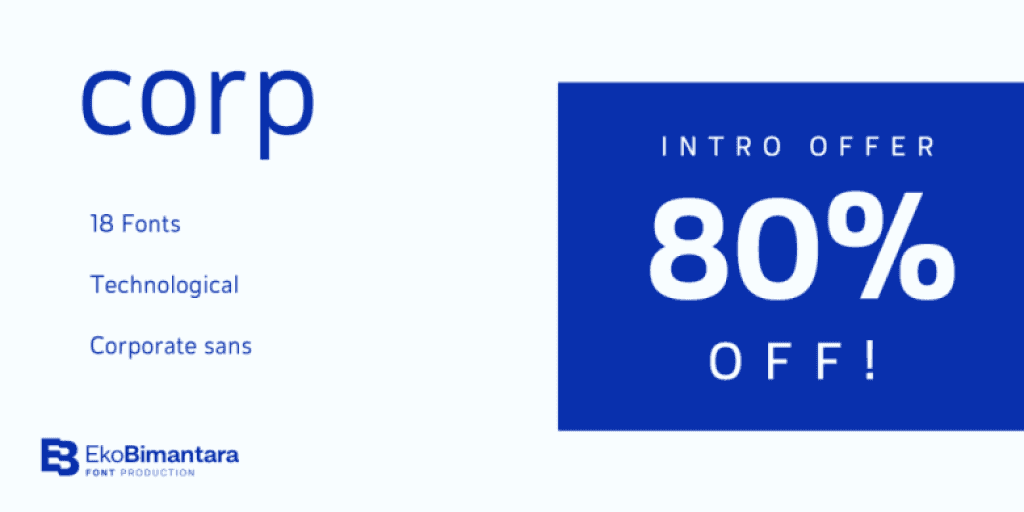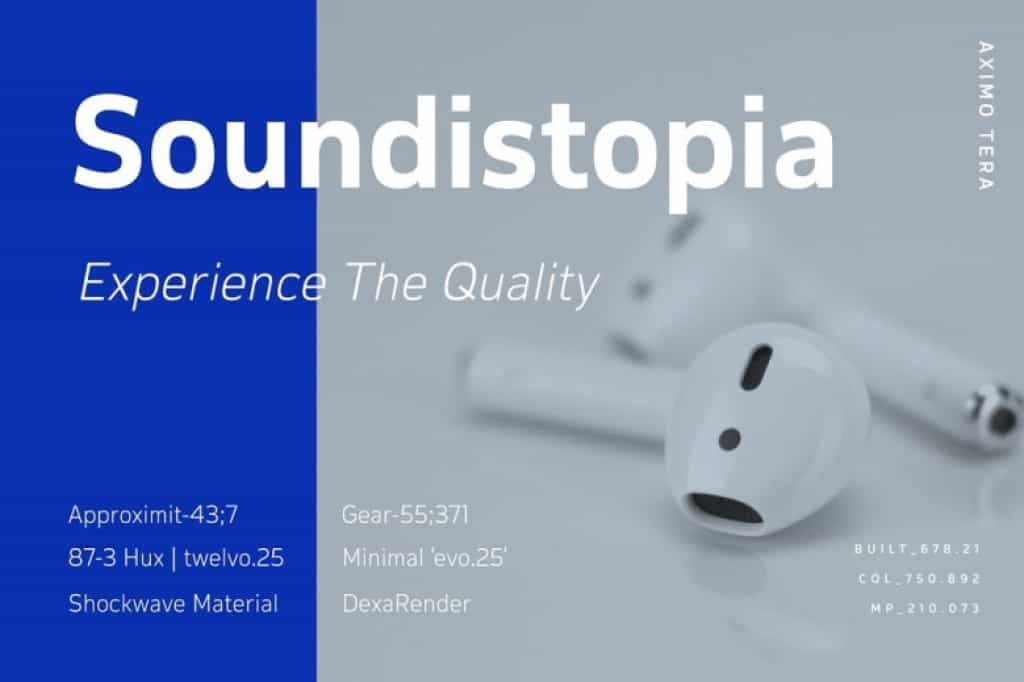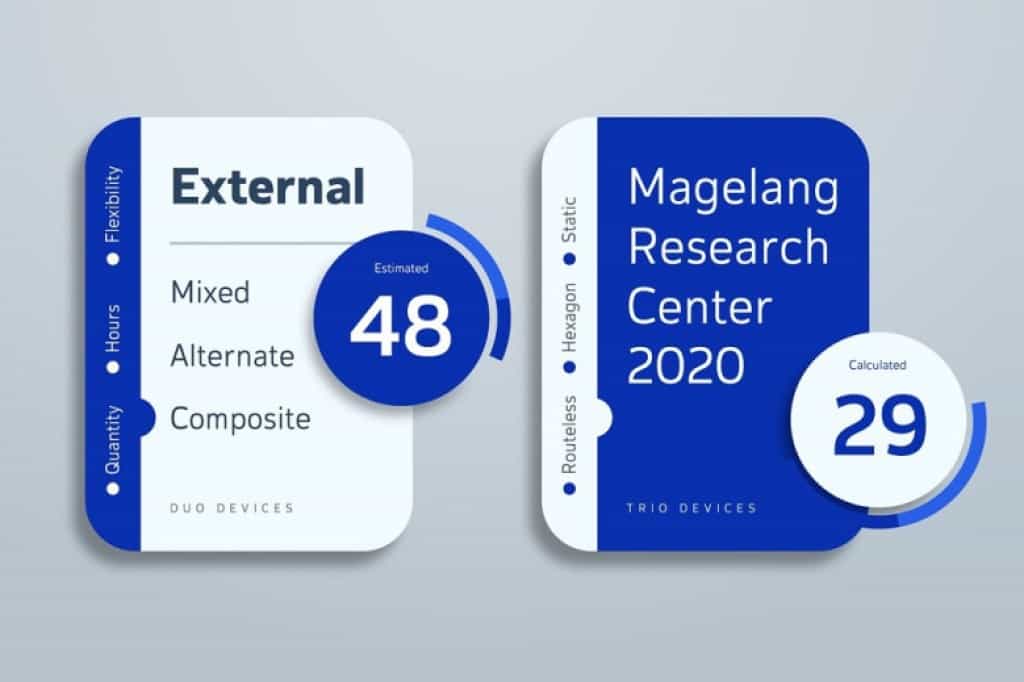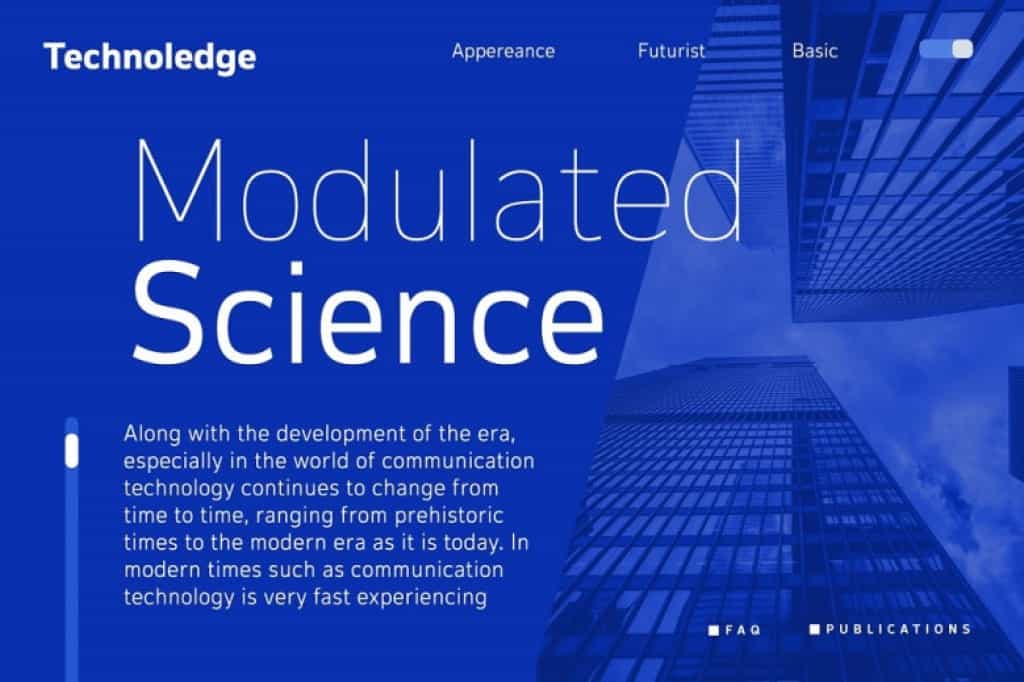
Corp is an innovative modern sans-serif typeface inspired by the post-modernist style. The typeface with a neutral appearance and this makes it a unique typeface a versatile choice for all types of modern designs. It was created and used by Eko Bimantara.